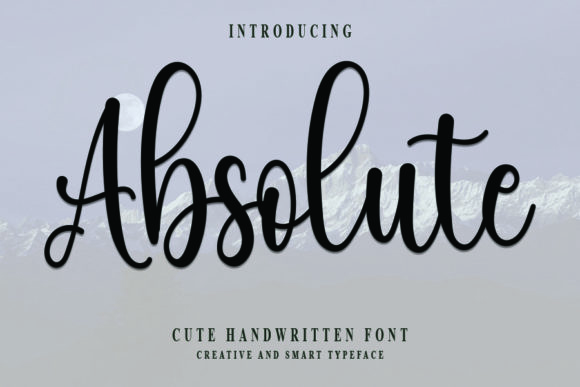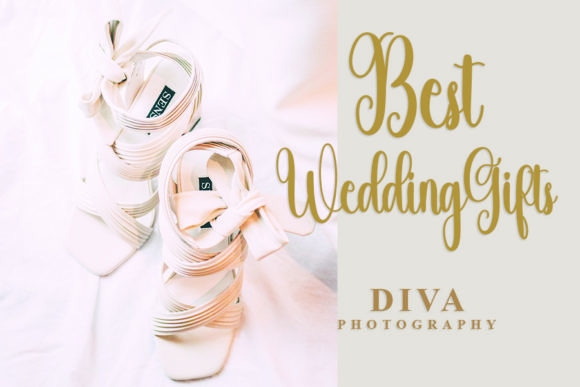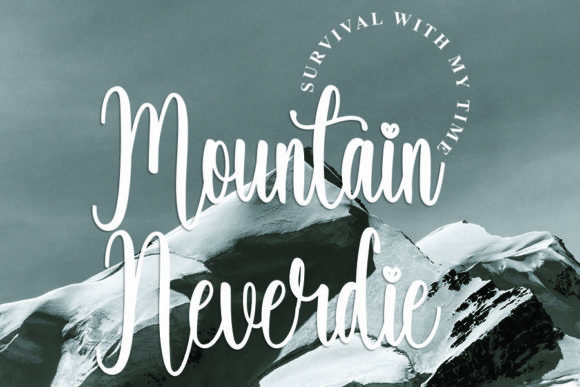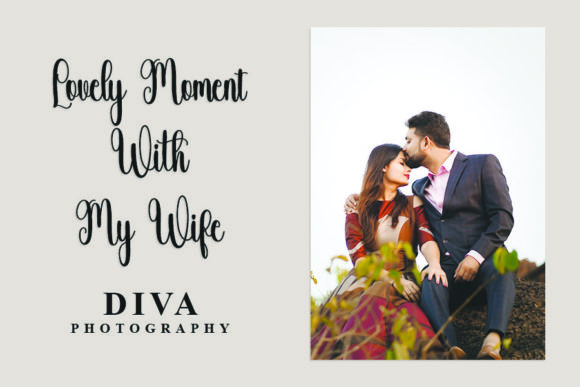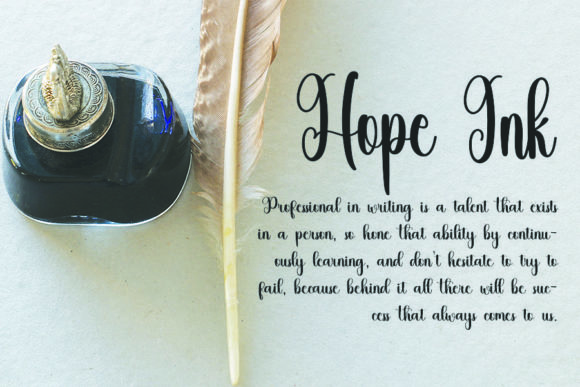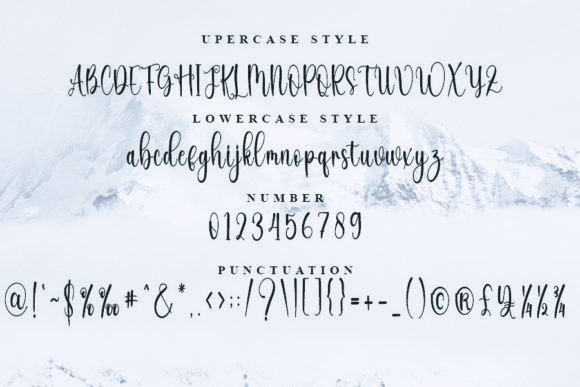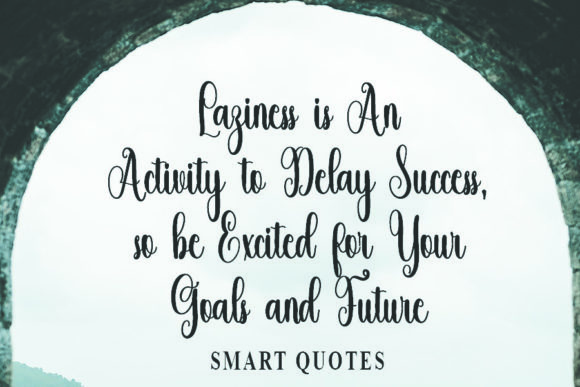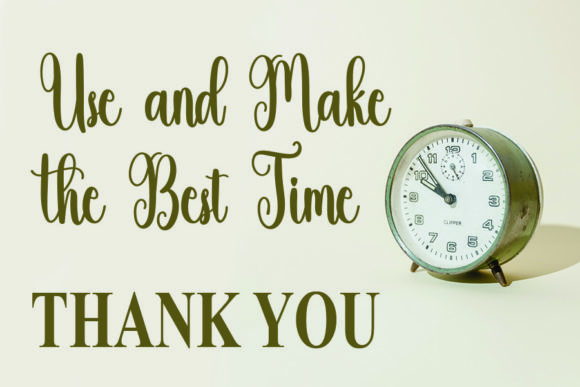
Absolute Font
About Absolute Font
Absolute emerges as a stylish handwritten font, exuding a contemporary ambiance and impeccable form, drawing inspiration from the timeless allure of classic calligraphy. Characterized by its meticulous balance and delightful variation, this font has been thoughtfully designed to elevate the aesthetic appeal of your projects.
The contemporary atmosphere of Absolute renders it a versatile choice for an array of design applications. Whether employed in branding, creative projects, or formal documents, Absolute’s stylish handwritten charm imparts an authentic touch of elegance. Its meticulous design ensures a sophisticated aesthetic, making it well-suited for diverse contexts where refined and varied typography is paramount.
Rooted in the traditions of classic calligraphy, Absolute seamlessly blends timeless influences with a modern expression. The careful balance struck between these elements creates a font that resonates across a broad audience. The variation in characters adds a dynamic quality, providing visual interest and enhancing its adaptability to different design themes.
Absolute transcends its role as a font; it is a design asset crafted to elevate the visual appeal of your projects. Its versatility extends to applications such as logos, invitations, and editorial designs, where its impeccable form and contemporary allure can truly shine. The font’s ability to seamlessly integrate into various design contexts underscores its adaptability and the enduring beauty it brings to any project it graces.
In summary, Absolute stands as a testament to the marriage of classic and contemporary aesthetics, offering a stylish handwritten font that enhances the beauty of your designs. Its balanced and varied design, inspired by timeless calligraphy, positions it as an ideal choice for designers seeking a versatile and sophisticated typographic solution. With Absolute, your projects are infused with a touch of timeless elegance and modern finesse.